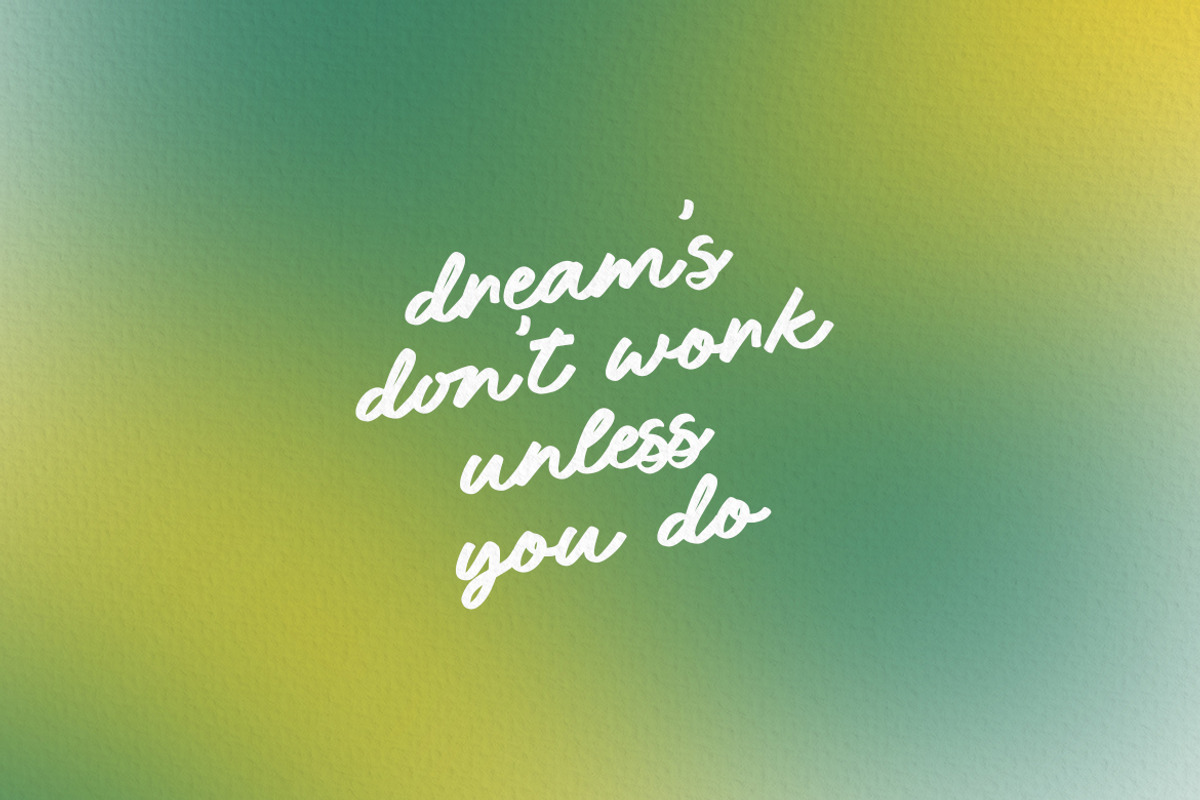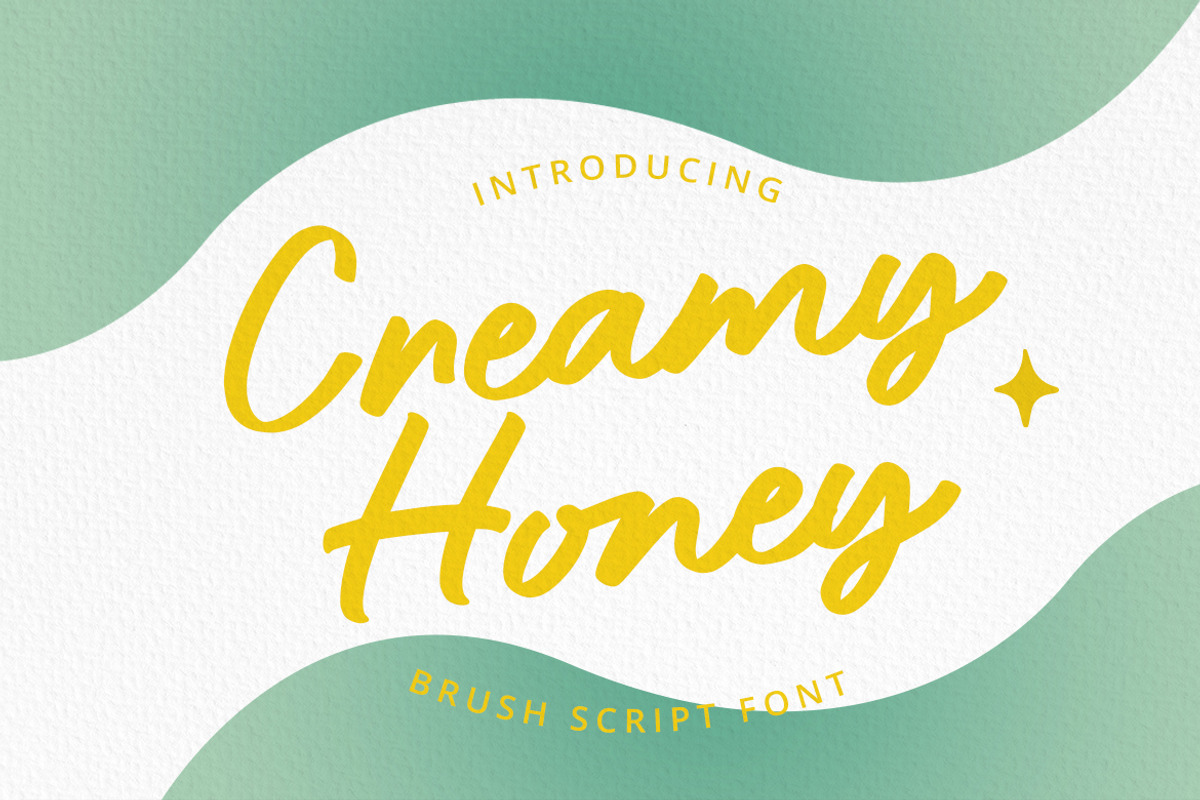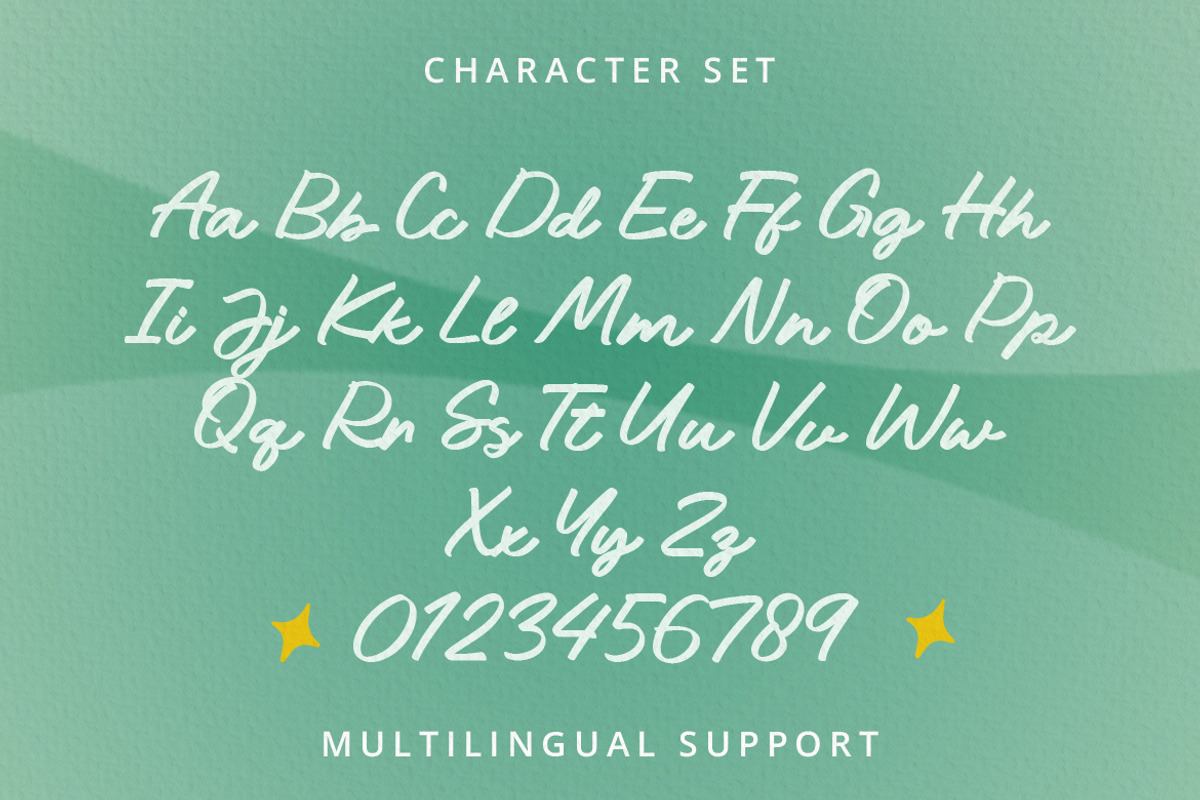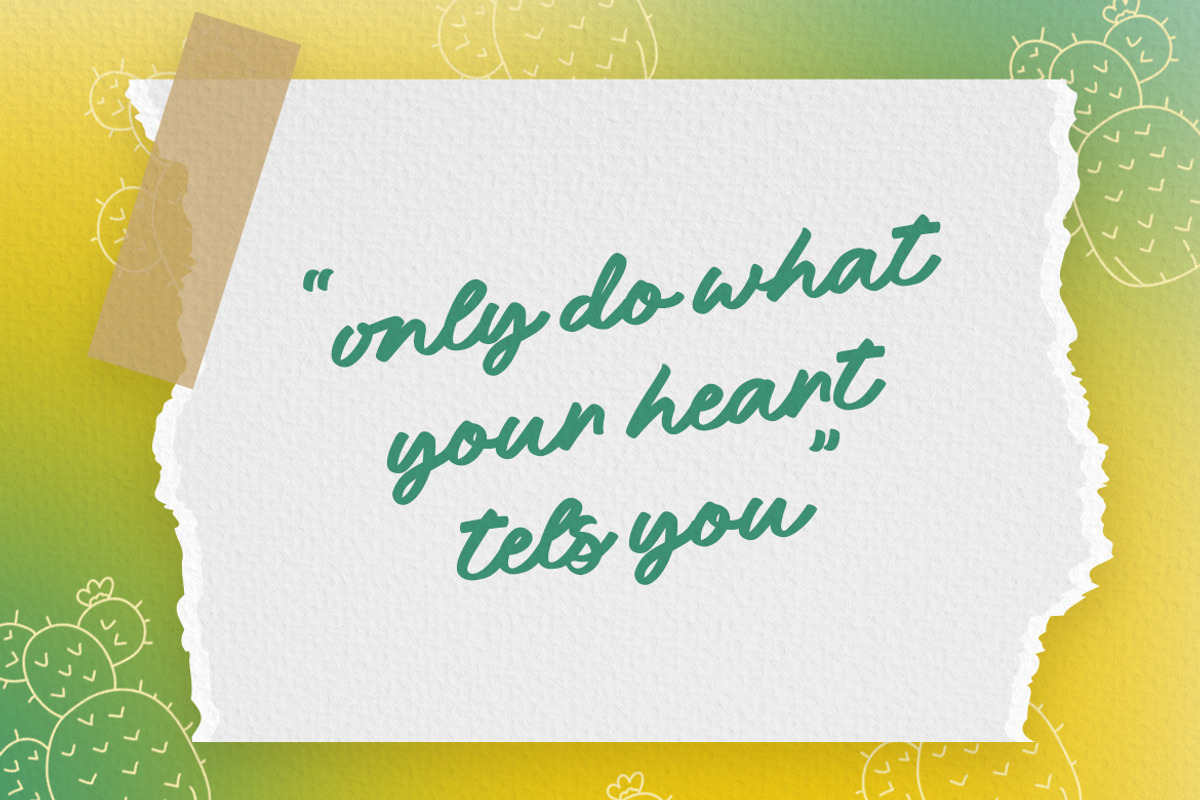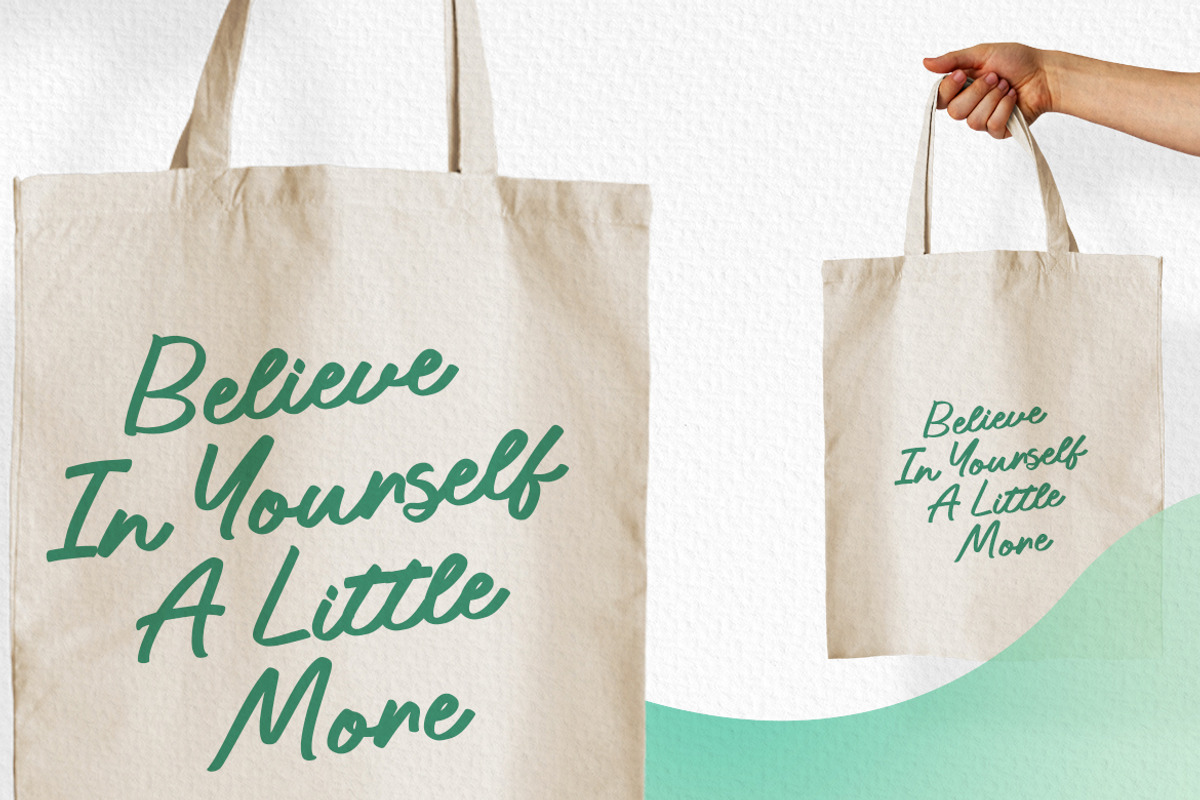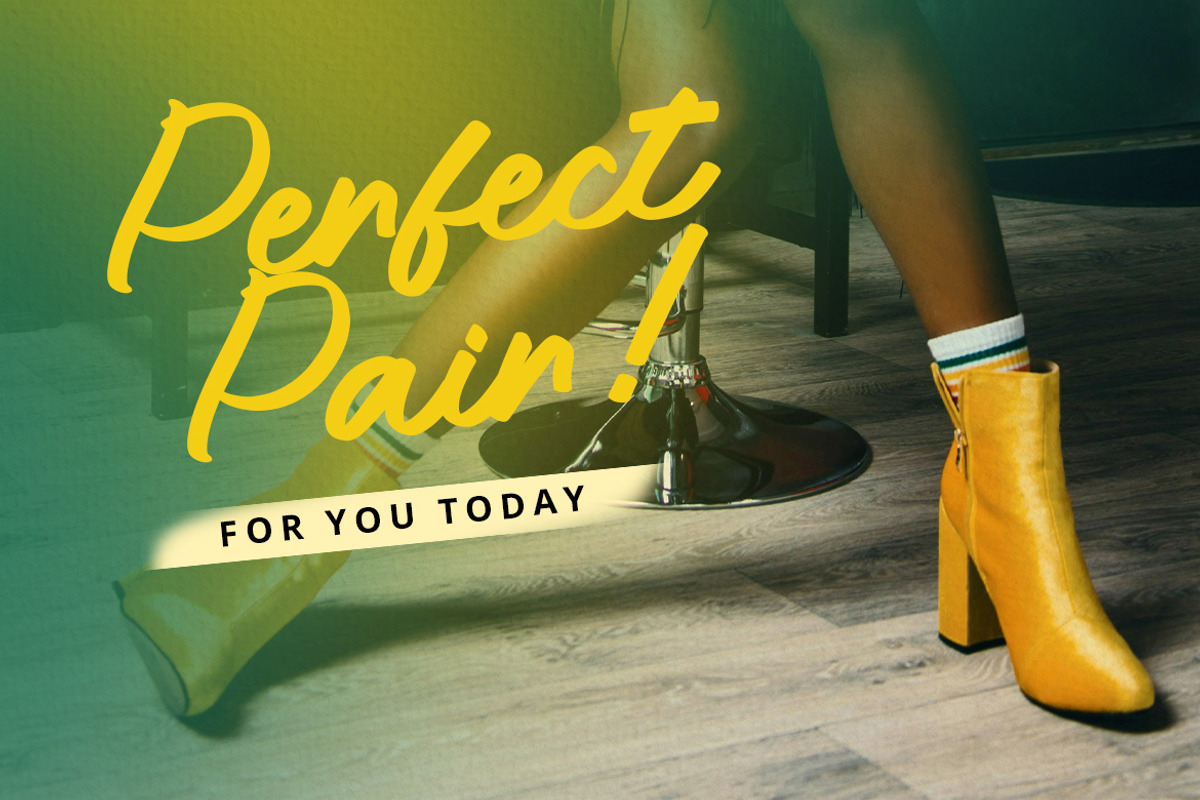
Creamy Honey | Brush Script Font
Unleash your creativity with this dynamic and expressive typeface. Perfectly blending the energy of brush strokes with elegant script, this font is designed to bring your projects to life. Ideal for everything from branding to social media posts, creamy honey will add a bold and artistic flair to any design.
- Uppercase, Lowercase & Punctuation
- Alternate & Ligature